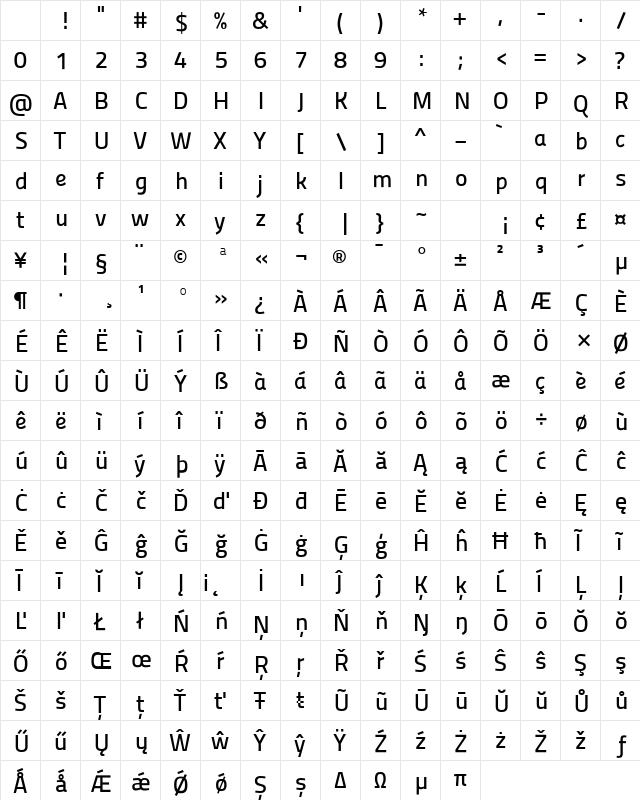
Complete Panefresco 600wt Regular glyph index. Displaying only characters natively supported by Panefresco 600wt Regular font.
Panefresco 600wt is a composed and adaptable typeface that performs quietly and consistently across a wide range of design contexts.